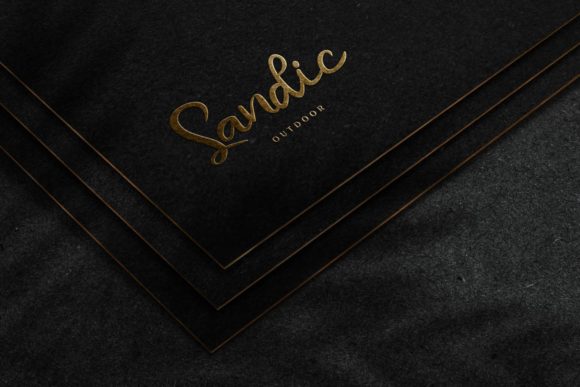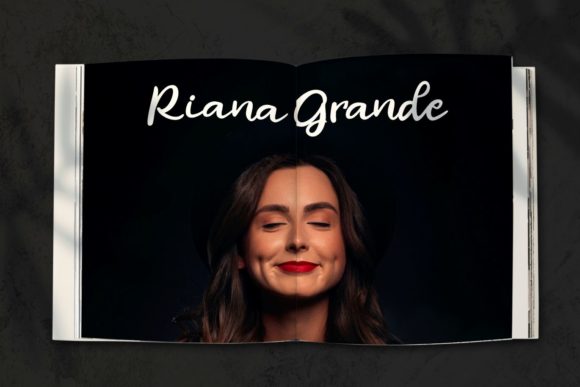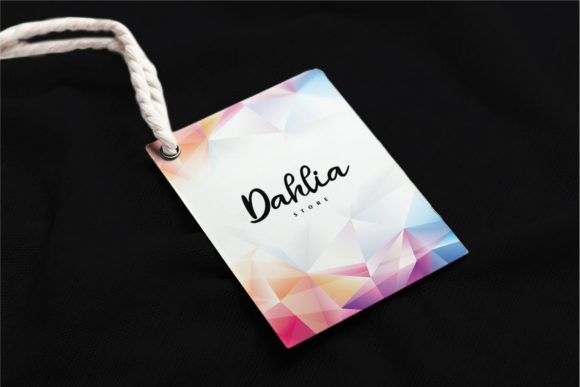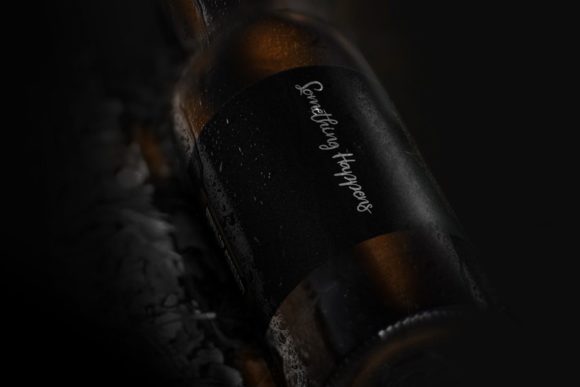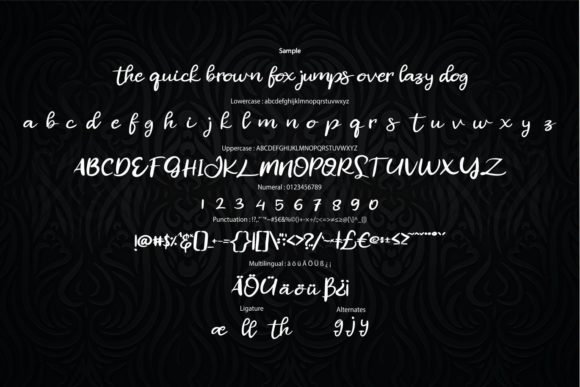
Halmore Font
About Halmore Font
Halmore is a flowing and elegant handwritten font that exudes sophistication and beauty. Its distinct and timeless style makes it a perfect fit for a wide range of design projects, adding a touch of refinement and grace to any creation. Here are some ways you can use Halmore font to elevate different design contexts:
1. Wedding Invitations: Create exquisite and romantic wedding invitations with Halmore font, setting the tone for a memorable and special event.
2. Thank You Cards: Design heartfelt and elegant thank you cards that convey gratitude with a touch of sophistication using Halmore font.
3. Quotes and Greeting Cards: Craft beautiful and meaningful quotes and greeting cards with Halmore font, capturing the essence of the message with its elegant strokes.
4. Logos and Branding: Establish a distinct and memorable brand identity by incorporating Halmore font into your logos and branding materials, adding a handwritten touch of refinement.
5. Business Cards: Add a touch of sophistication to your business cards with Halmore font, leaving a lasting impression on potential clients.
6. Social Media Graphics: Elevate your social media presence with visually appealing graphics featuring Halmore font, creating a cohesive and elegant look.
7. Stationery Art: Create stunning stationery art and letterheads with Halmore font, showcasing professionalism and personal flair.
8. Book Titles and Covers: Design captivating book titles and covers with Halmore font, adding an elegant and timeless touch to literary works.
9. Personal Branding: Use Halmore font for personal branding, such as signatures and watermarks, to add a touch of refinement and sophistication.
10. Artistic Projects: Incorporate Halmore font into artistic projects like calligraphy pieces and illustrations to add a touch of elegance and grace.
11. Packaging Design: Elevate product packaging with Halmore font, making products appear sophisticated and refined.
12. Event Invitations: Design invitations for special events and occasions using Halmore font, creating an elegant and inviting atmosphere.
Halmore font’s flowing and elegant demeanor, combined with its timeless style, makes it a delightful choice for a wide variety of design projects. Whether used for formal or informal occasions, branding, or artistic endeavors, Halmore font will add a touch of beauty and sophistication to your creations. Embrace the elegance of this font and let it enhance your designs with its distinct and timeless appeal.